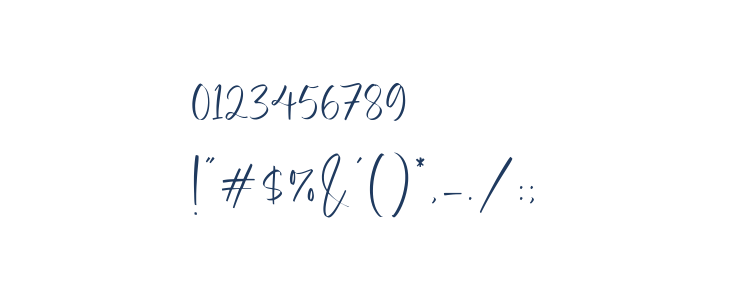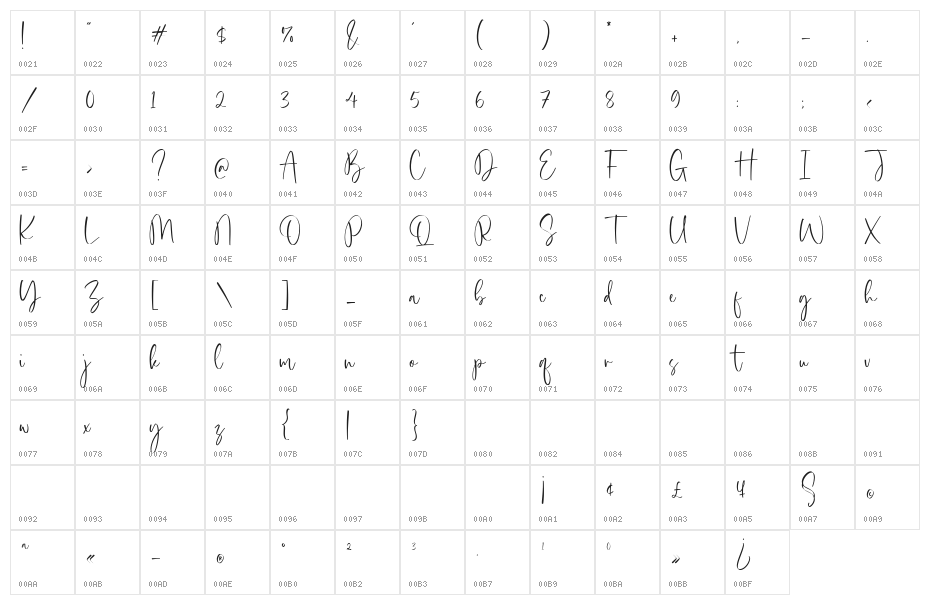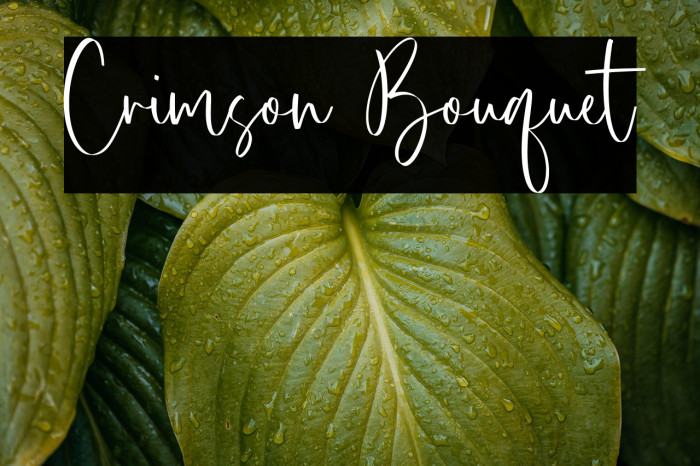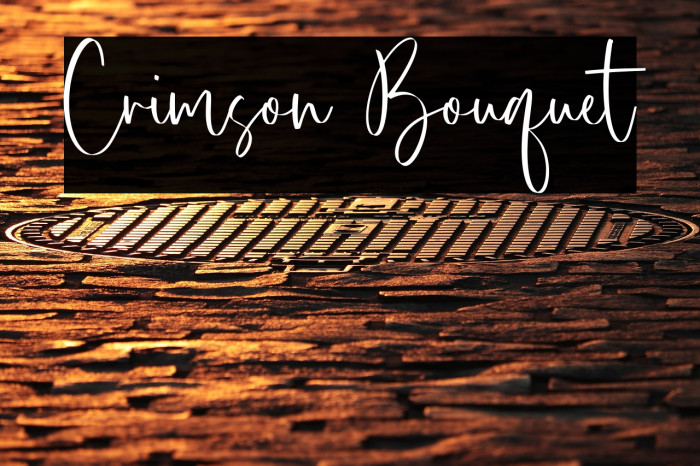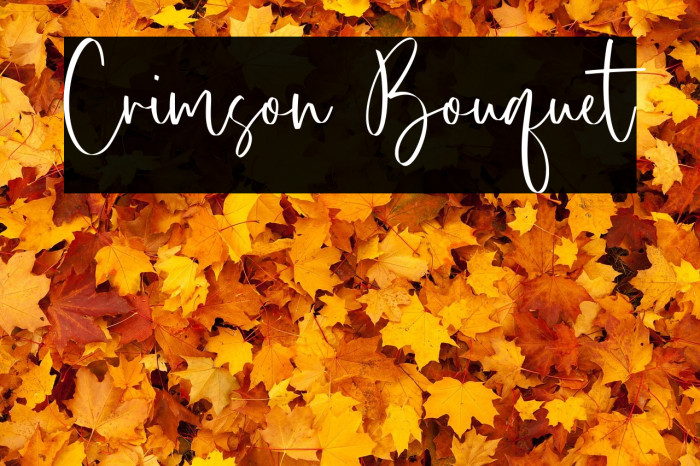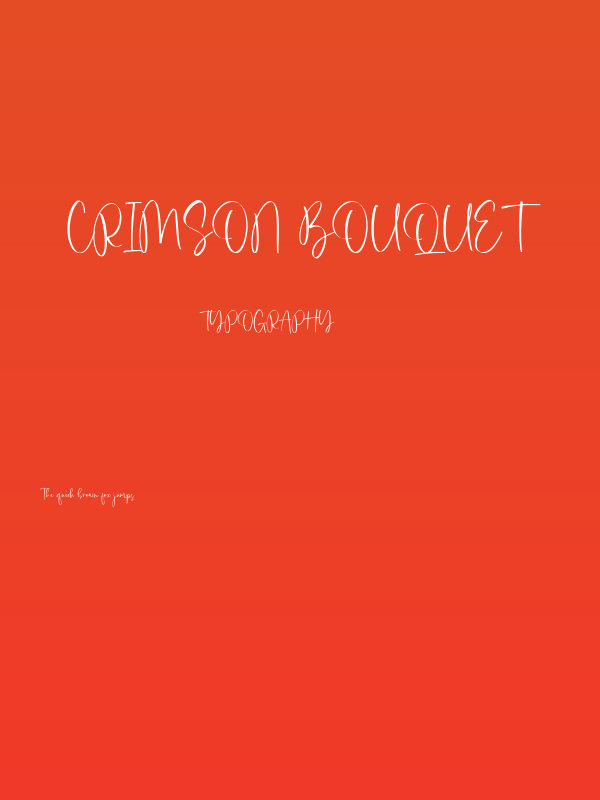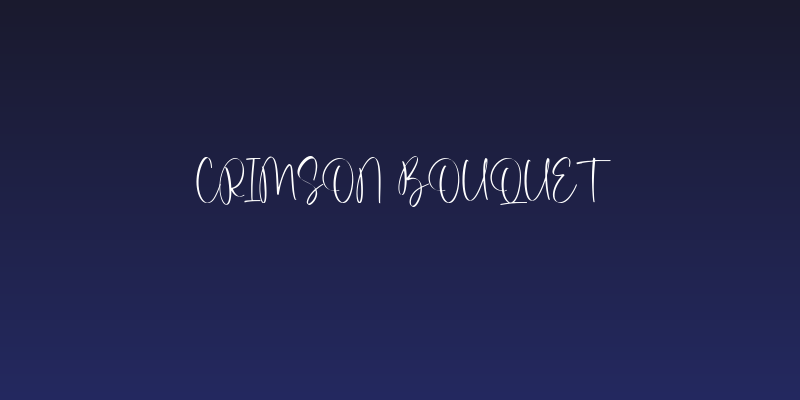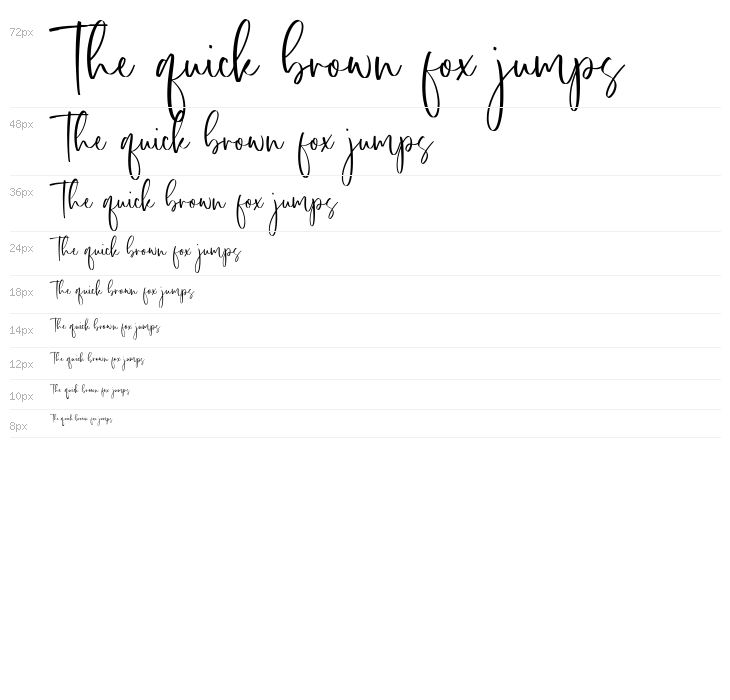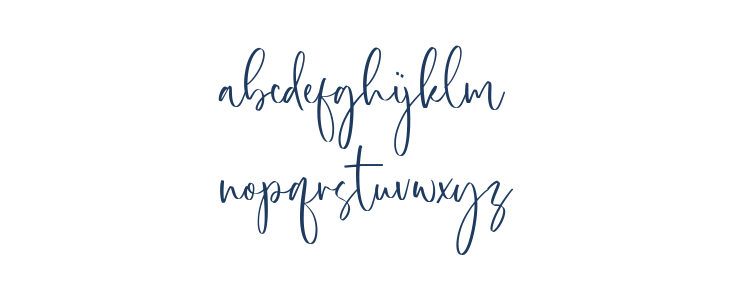
Crimson Bouquet Font
Crimson Bouquet Description
This font features a lively and flowing script style, characterized by its elegant, cursive letterforms that mimic natural handwriting. The uppercase letters are tall and slightly slanted, with graceful loops and curves that add a sense of movement and fluidity. The lowercase letters maintain a consistent style, with smooth connections between characters, enhancing the handwritten feel. The numerals are distinct and easy to read, while the special characters complement the overall aesthetic. This font exudes a sense of sophistication and charm, making it ideal for projects that require a personal and artistic touch.
| Proposed Projects | Ideal for wedding invitations, greeting cards, personal branding, and artistic projects. |